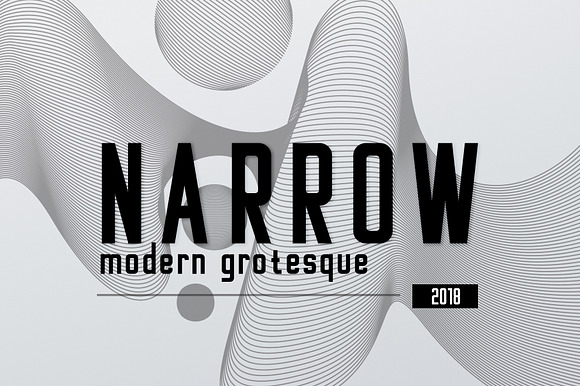
NARROW - modern grotesque font
Why NARROW - modern grotesque font is worth a look
NARROW - modern grotesque font by Hurski Anton fits naturally into Branding, posters, packaging, typography.